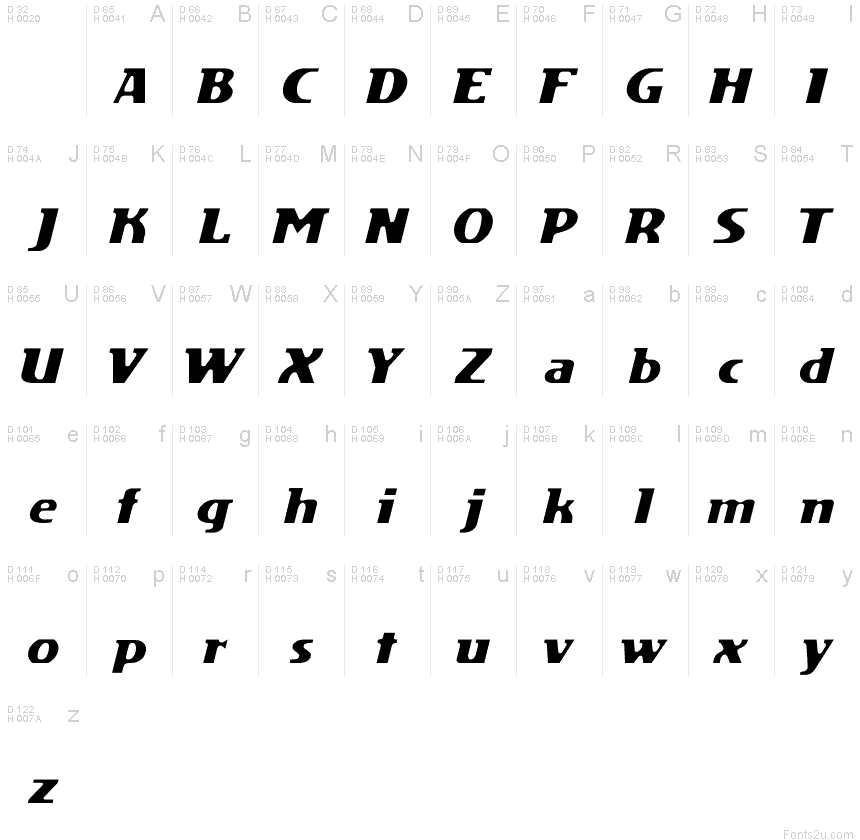
DS Motion Italic, designed by Dubina Nikolay of D-Studio in Moscow, is a free heavy italic serif built for forceful display work. The letters lean hard to the right, combining broad rounded masses with sharp joins, compact wedge-like serifs, and visibly changing stroke widths.
That racing and action-sports flavor makes it convincing for event posters, team merchandise, and game graphics, where the forward pitch can suggest speed before any imagery appears. It also has the punch of comic entertainment lettering. On album covers and youth-oriented packaging, the chunky curves can become part of an illustrated burst, badge, or motion trail rather than sitting as neutral type.